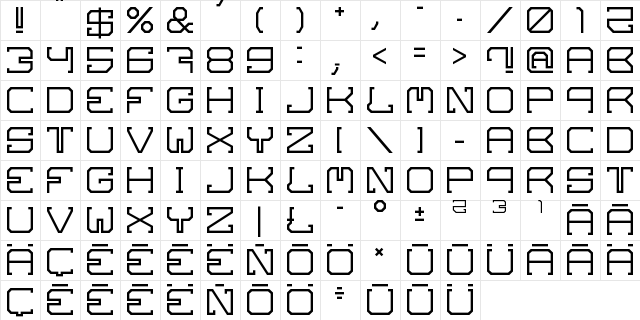
SKOV Regular
Design Context for SKOV Typeface
SKOV offers clean, dependable letterforms without strong stylistic allegiance, making it a practical choice for designers who need flexibility.